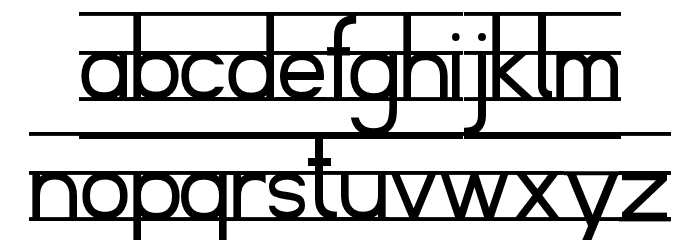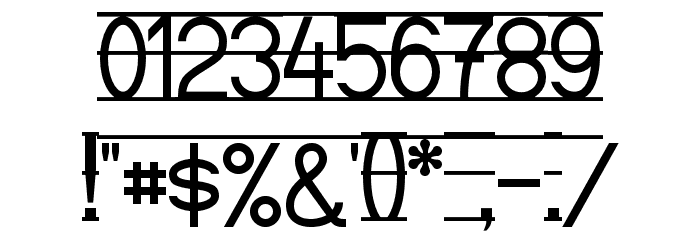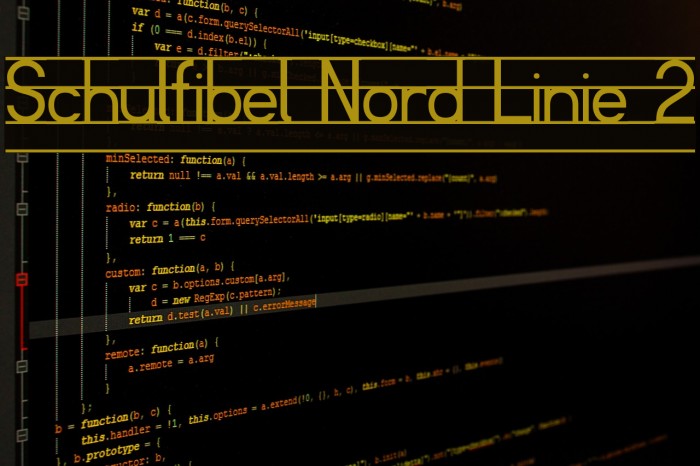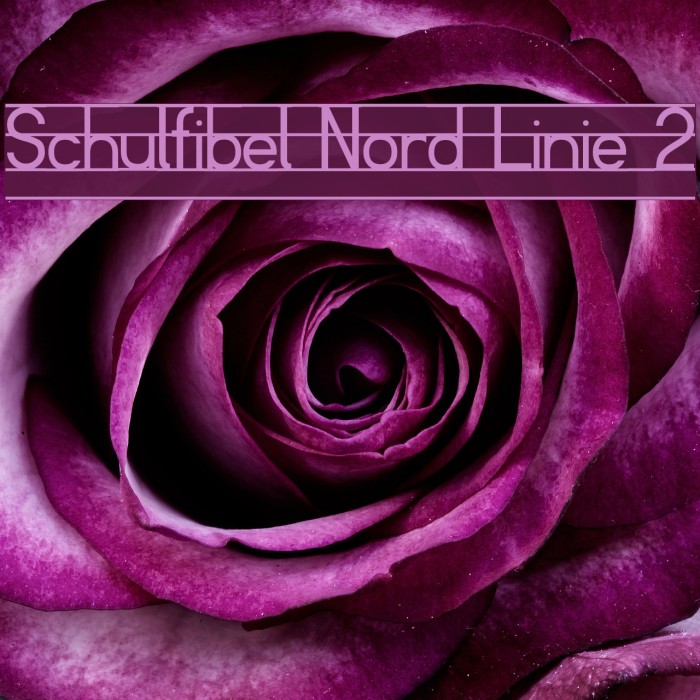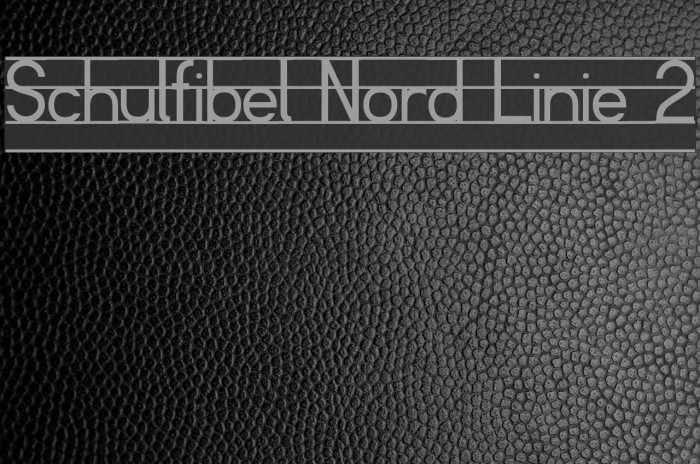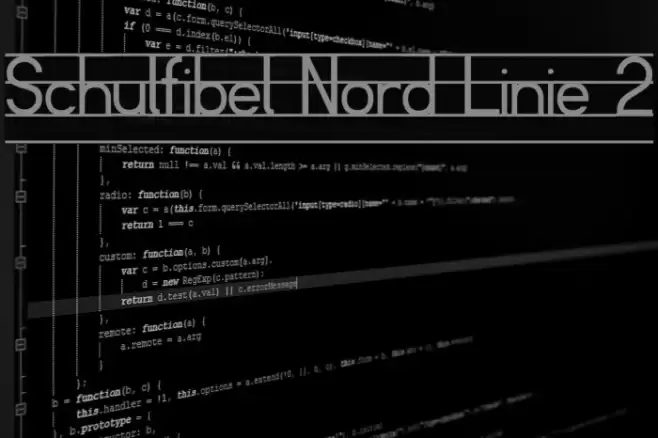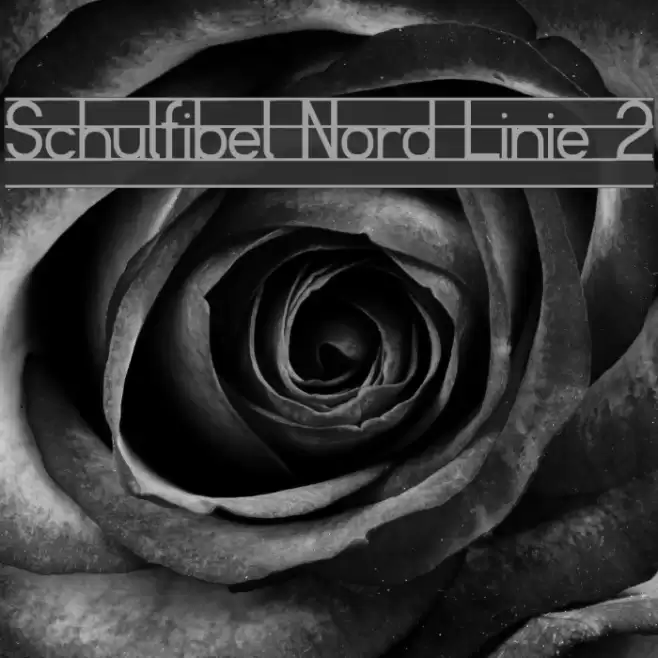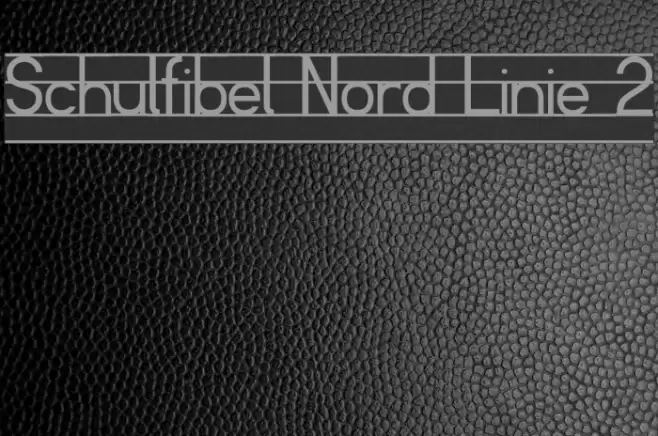
Schulfibel Nord Linie 2 Font
This font features a geometric and structured design, characterized by its clean lines and uniform stroke width. The uppercase and lowercase letters are distinct, with a modern and minimalistic appearance. The numerals are consistent with the overall style, maintaining clarity and readability. Special characters are well-integrated, complementing the font's aesthetic. The font's design is suitable for educational or instructional materials, providing a clear and straightforward reading experience.
A geometric and structured font with clean lines and uniform strokes.
- Proposed Projects: Ideal for educational materials, signage, and instructional guides.
- Use Case: Headlines, Body text, Educational materials